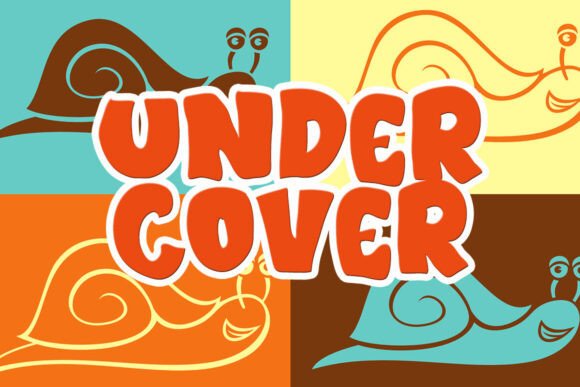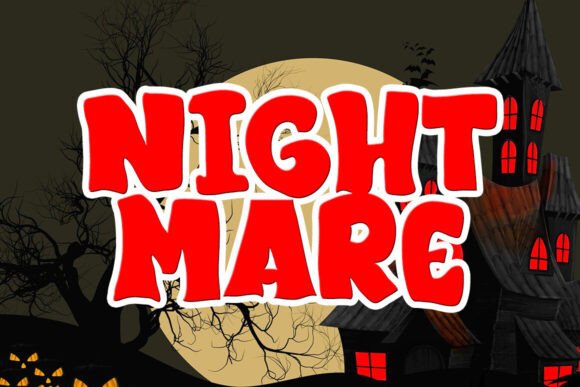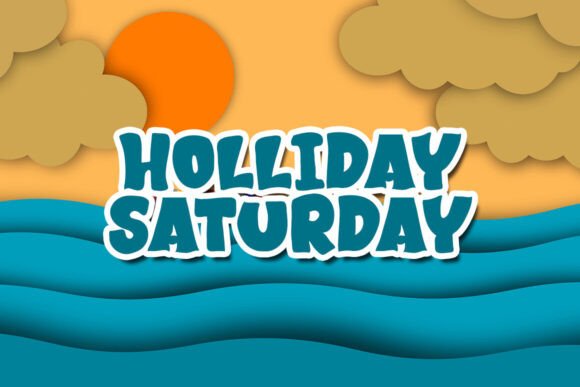
Introduction to Saltime Font
Imagine you’re working on a creative project, and you’re struggling to find the perfect font to match your vision. The words on the page seem dull and uninviting, and you can’t help but feel like something’s missing. That’s where the Saltime Font comes in – a beautifully crafted font that’s sure to breathe new life into your designs.
As a designer, you know how crucial it is to have a reliable design resource that can help you bring your ideas to life. With the Saltime Font, you’ll have access to a high-quality font that’s perfect for both business and casual projects. Its clarity and refinement make it an excellent choice for any creative project, and its free download feature means you can start using it right away.
Whether you’re working on a logo, brochure, or website, the Saltime Font is sure to make your designs stand out with its captivating joyfulness. Plus, its transparent background feature allows for seamless integration with any design element. So why settle for an ordinary font when you can have the Saltime Font to elevate your creative process and make your venture truly unforgettable?
Key Features of Saltime Font
- Includes a range of font styles with a transparent background, ideal for digital use.
- Unique, hand-drawn design elements and intricate details make it a standout design resource.
- Perfect for use in graphic design, digital art, and other creative projects requiring a high level of visual detail.
Honest Review: Saltime Font
I recently had the chance to work with the Saltime Font, and I must say, it’s been a game-changer for my creative projects. This free download has been a lifesaver, offering a high-quality design resource that’s perfect for anything from branding to advertising.
What works well with Saltime Font is its versatility. The font is available in various styles, from modern to vintage, making it easy to find the perfect fit for any design project. The transparent background is also a huge plus, allowing me to seamlessly integrate the font into my designs.
- ✨ High-quality design resource
- ✨ Versatile font styles
One limitation I’ve noticed is that the font may not be suitable for all types of designs. For example, it may not be the best choice for projects that require a lot of bold, attention-grabbing text. Additionally, the font may require some tweaking to get it to look perfect on certain devices.
Overall, I’m really impressed with the Saltime Font. It’s a high-quality design resource that’s perfect for creative projects. While it may have some limitations, I think it’s definitely worth checking out.
Saltime Font
Saltime Font is a versatile design resource that can be used for a variety of creative projects, including:
- Graphic design and visual identity
- Print design and publishing
Tips for Getting the Most Out of Saltime Font
To get the most out of Saltime Font, follow these tips:
- Use it with a transparent background to create a clean and modern look
- Experiment with different font sizes and styles to find the perfect fit for your design
- Combine Saltime Font with other design resources to create a unique and eye-catching visual identity